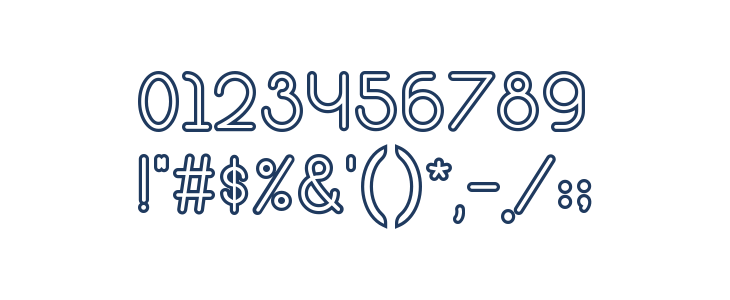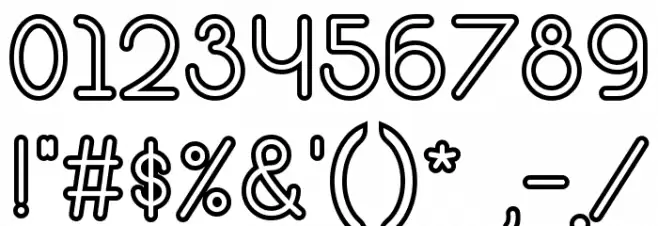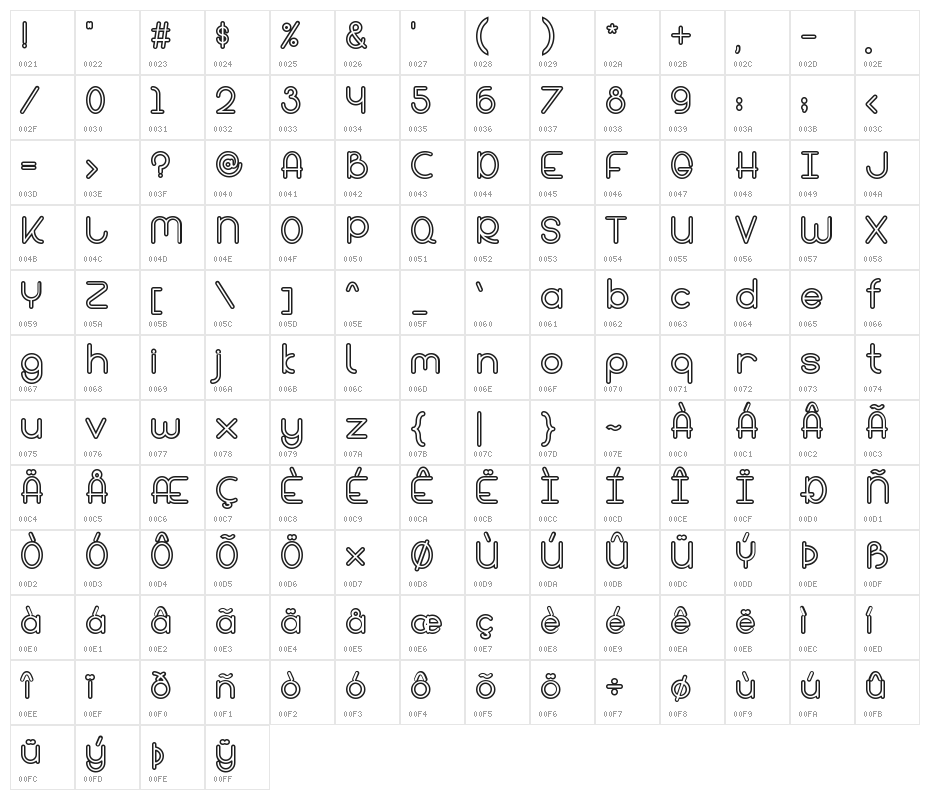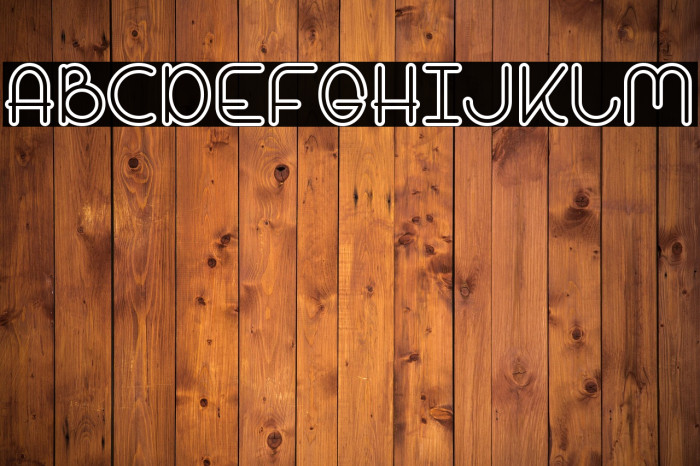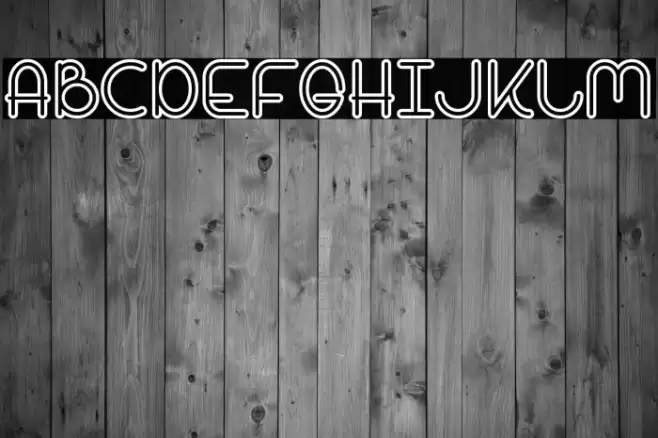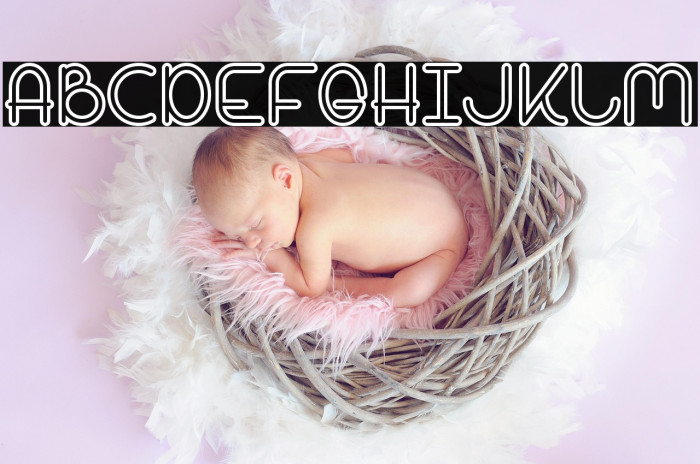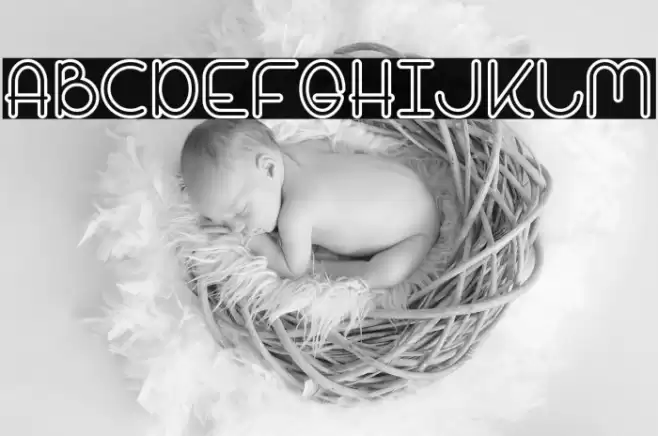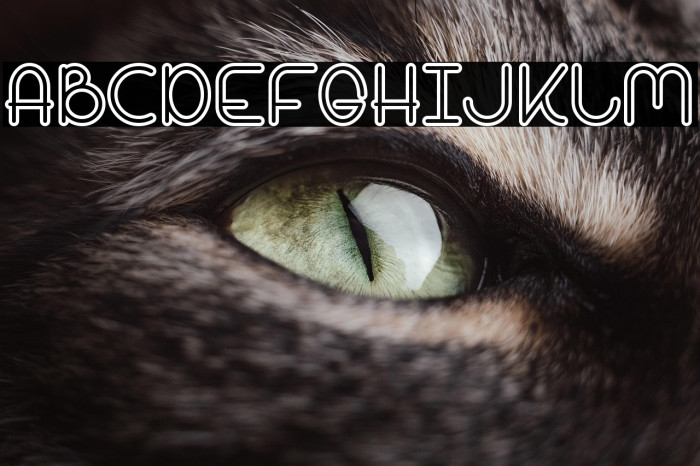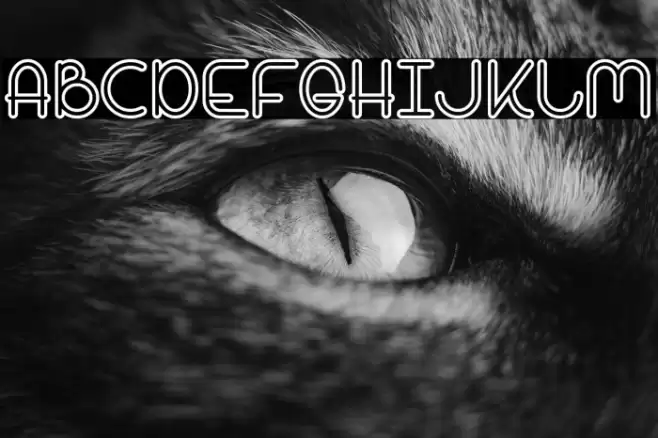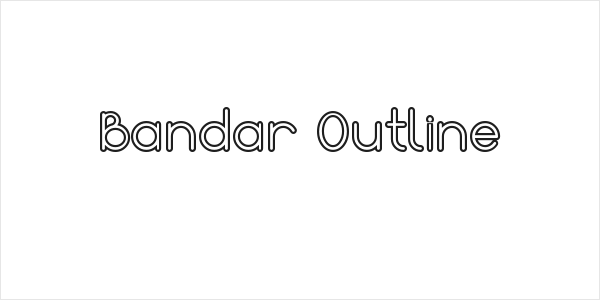
Bandar Outline Font
Bandar Outline Description
This font features a distinctive outline style that gives it a modern and playful appearance. The characters are rounded with consistent stroke widths, creating a uniform and cohesive look. The uppercase and lowercase letters maintain a similar structure, enhancing readability while adding a unique flair. The numerals and special characters follow the same design principles, ensuring a harmonious overall aesthetic. This font's open and airy design makes it ideal for creative projects where a light-hearted and contemporary feel is desired.
| Proposed Projects | Ideal for branding, posters, children's books, and playful graphic design projects. |